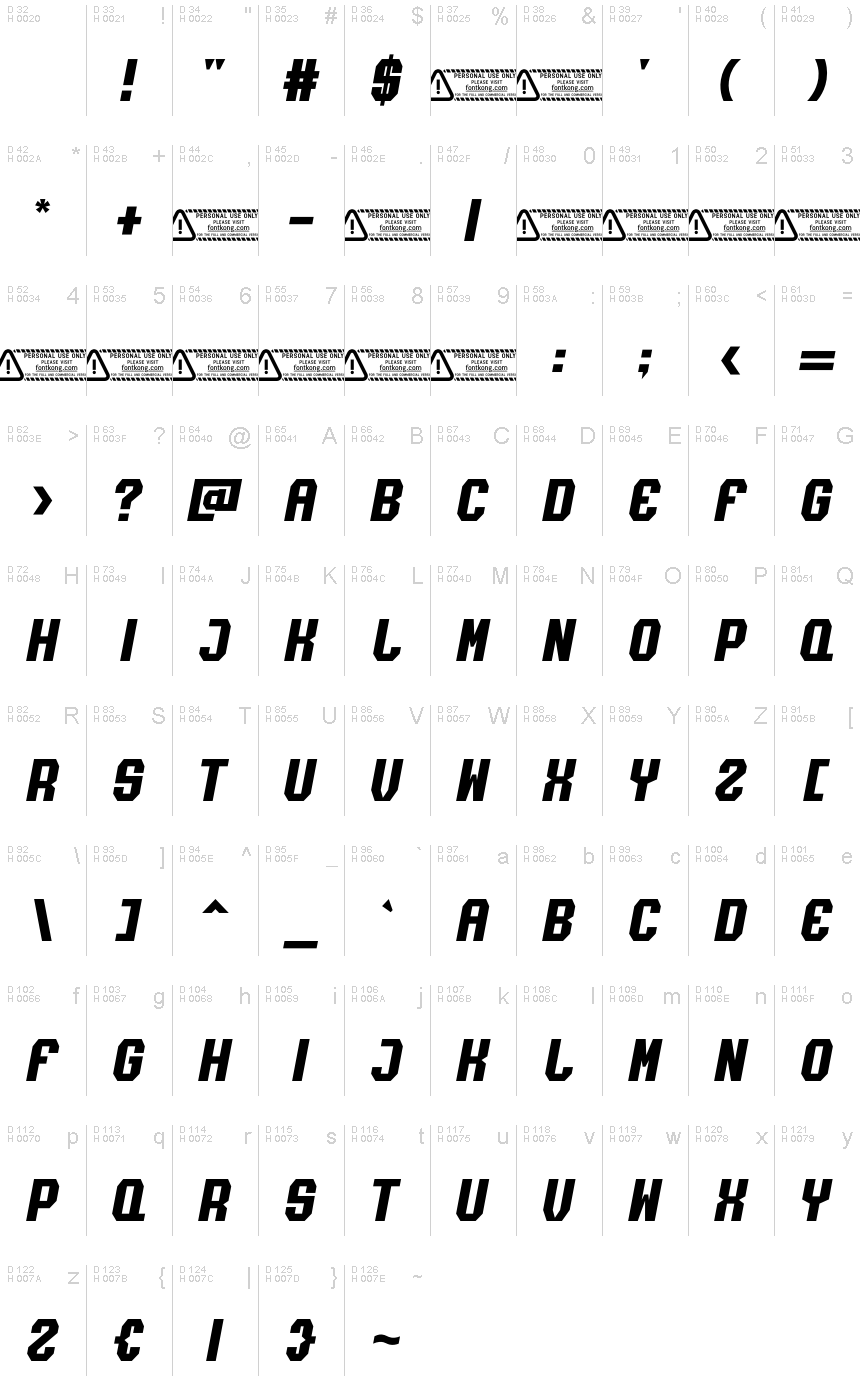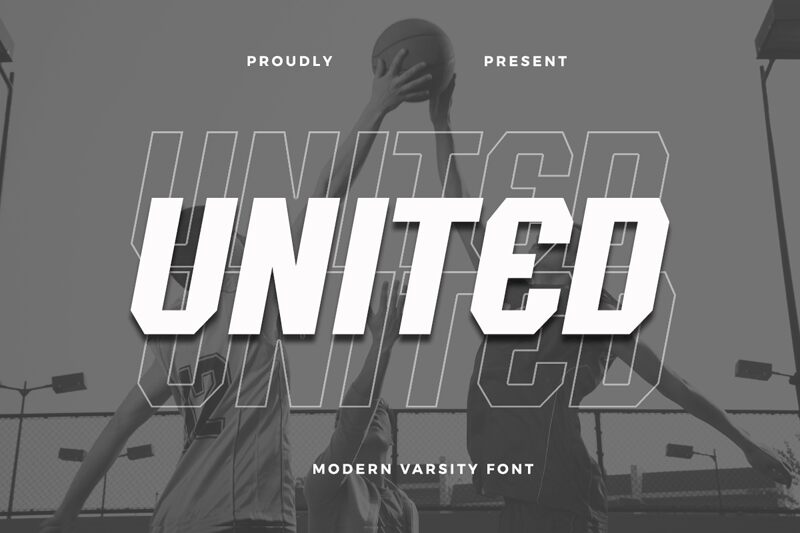
United, crafted by Kong Font, is a striking display typeface that exudes an old school charm. Its condensed width and bold strokes create a commanding presence, perfect for making statements that demand attention. The angular design and clean lines give it a vintage yet modern feel, ideal for projects that seek to blend nostalgia with contemporary aesthetics.
Whether it's for eye-catching headlines, retro posters, or branding materials that need to stand out, United's unique style ensures your message is both impactful and memorable. Its distinctive character makes it versatile for various design contexts where boldness and clarity are paramount.